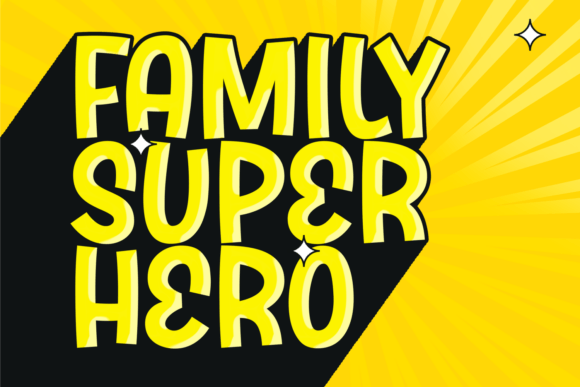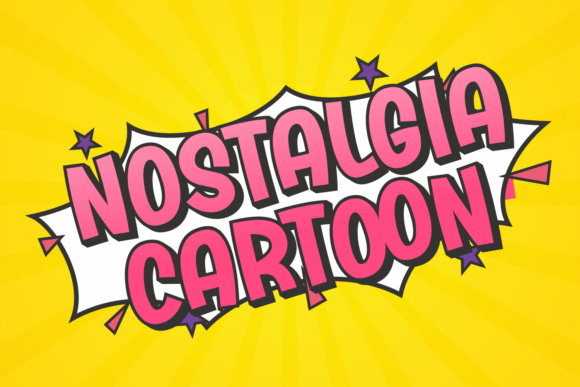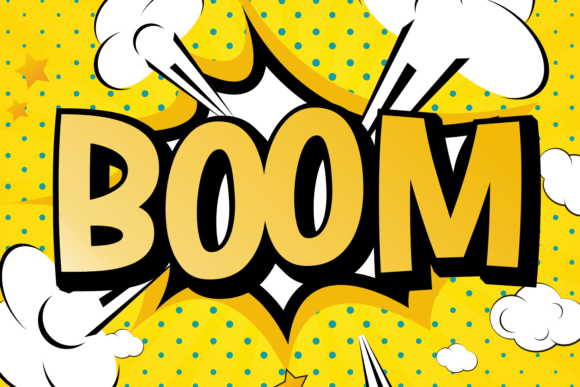
Introducing Bakoom Font: Unleash the Power of Playful Typography
Are you tired of using the same old fonts in your designs? Look no further! Meet “Bakoom”, a bold and lively cartoon display font that’s about to take your creative projects to the next level. With its thick, playful letters and dynamic comic book style, “Bakoom” is the perfect addition to any design that needs a burst of energy and fun.
The Inspiration Behind Bakoom
Bakoom is more than just a font – it’s an experience. Inspired by the vibrant world of comic books and cartoons, “Bakoom” brings a sense of excitement and playfulness to your designs. Its exaggerated forms and high contrast colors are carefully crafted to capture attention and add a pop of fun to any project. Whether you’re designing a poster, children’s book, or merchandise, “Bakoom” is the perfect choice to make your creations stand out.
Key Features of Bakoom Font
- Bold and Lively: “Bakoom” features thick, playful letters that are sure to grab attention.
- Dynamic Comic Book Style: The font’s comic-inspired flair makes it perfect for playful branding, social media content, and even superhero-themed designs.
- High Contrast Colors: The font’s high contrast colors add a touch of sophistication and elegance to your designs.
- Exaggerated Forms: The exaggerated forms of “Bakoom” make it perfect for posters, children’s books, and merchandise.
Bakoom is a versatile font that can be used for a wide range of projects, including:
- Posters: Add a pop of excitement to your posters with “Bakoom”‘s bold and lively letters.
- Children’s Books: Bring your children’s books to life with “Bakoom”‘s playful and dynamic style.
- Merchandise: Add a touch of fun and personality to your merchandise with “Bakoom”‘s comic-inspired flair.
- Social Media Content: Make your social media content stand out with “Bakoom”‘s bold and attention-grabbing letters.
- Superhero-Themed Designs: “Bakoom” is the perfect choice for superhero-themed designs, with its dynamic comic book style and bold letters.
Why Choose Bakoom Font?
With so many fonts to choose from, why choose “Bakoom”? Here are just a few reasons why “Bakoom” stands out:
- Unique and Playful: “Bakoom” is a one-of-a-kind font that’s sure to add a touch of personality to your designs.
- Attention-Grabbing: The font’s bold and lively letters are designed to capture attention and add a pop of excitement to your designs.
- Versatile: “Bakoom” can be used for a wide range of projects, from posters and children’s books to merchandise and social media content.
In conclusion, “Bakoom” is a bold and lively cartoon display font that’s perfect for designers and crafters who want to add a touch of fun and personality to their creations. With its dynamic comic book style, exaggerated forms, and high contrast colors, “Bakoom” is sure to capture attention and add a pop of excitement to any project. So why settle for ordinary fonts when you can have a font that’s truly extraordinary? Choose “Bakoom” today and take your designs to the next level!